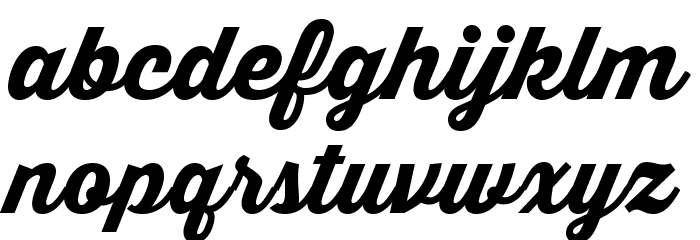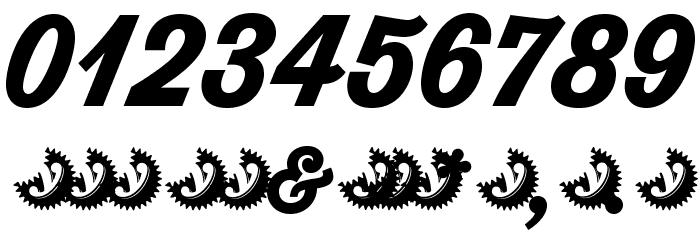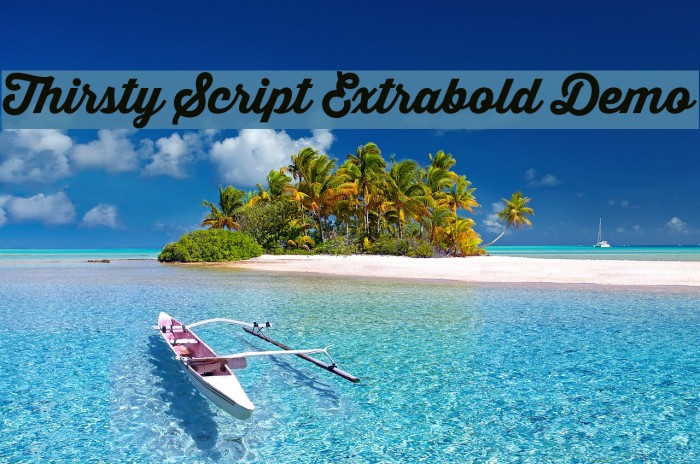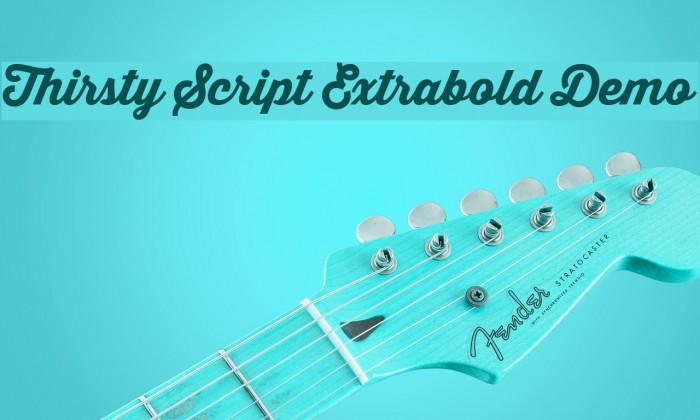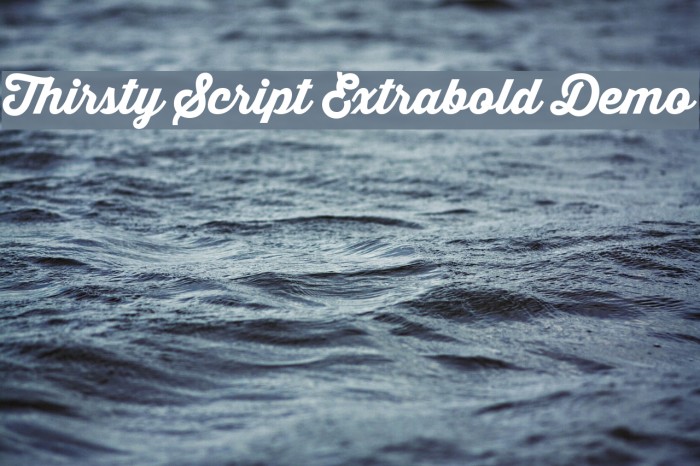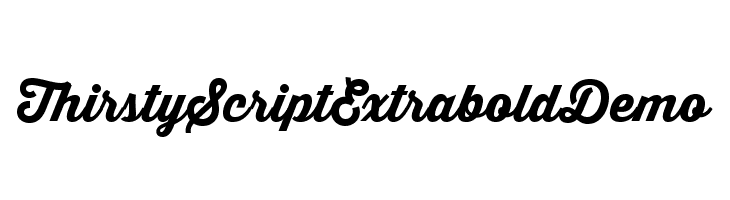
Thirsty Script Extrabold Demo Font
This font features a bold, flowing script style that exudes a sense of elegance and dynamism. The uppercase letters are characterized by their sweeping curves and distinctive flourishes, giving them a dramatic and eye-catching appearance. The lowercase letters maintain a consistent flow, with smooth connections between characters that enhance readability while preserving the script's artistic flair. The numerals are bold and clear, ensuring they stand out effectively. The special characters are intricately designed, adding a decorative touch that complements the overall style. This font's bold weight and high contrast in stroke thickness make it suitable for impactful designs.
A bold, elegant script font with dramatic flourishes and high contrast.
- Proposed Projects: Ideal for branding, invitations, signage, and any project requiring a touch of elegance and flair.
- Use Case: Logos, Headlines, Invitations